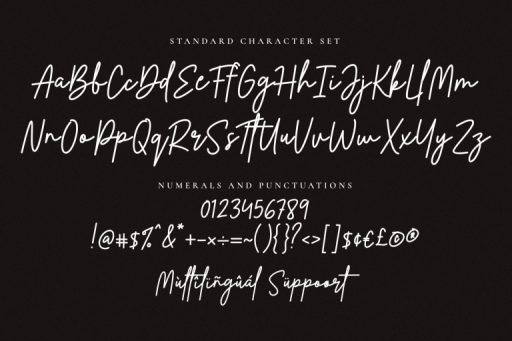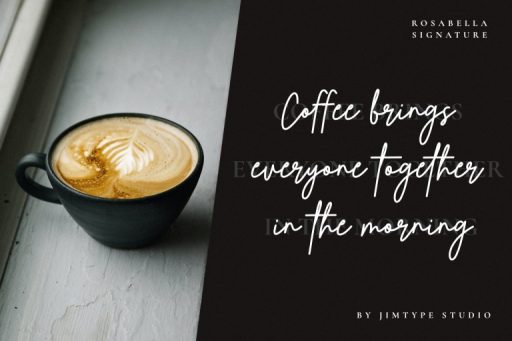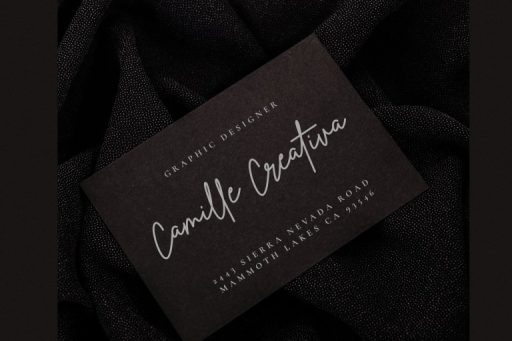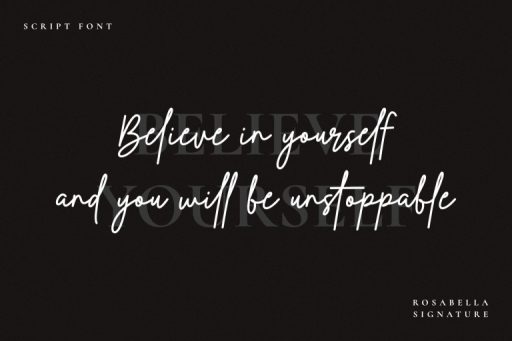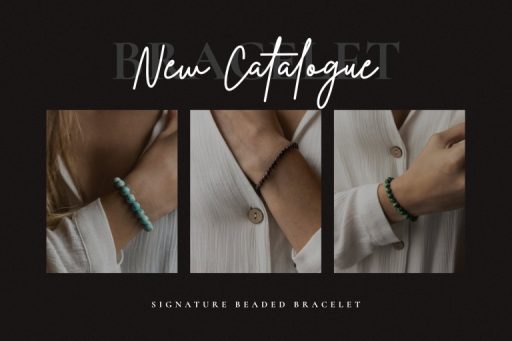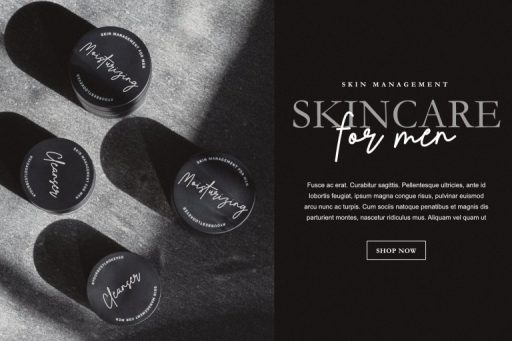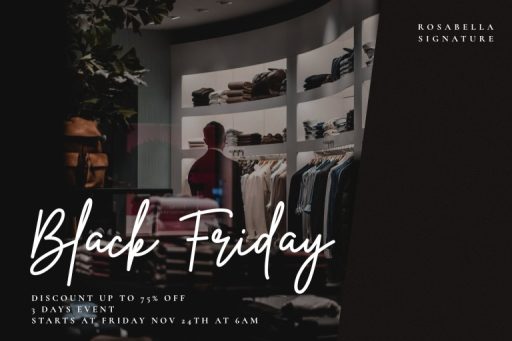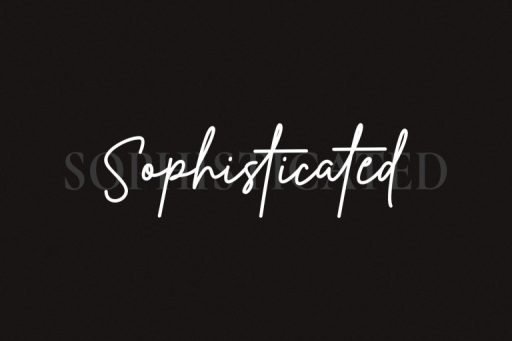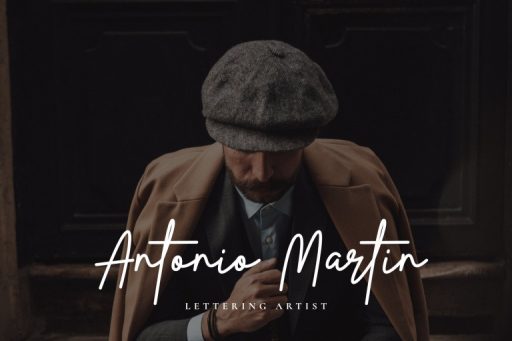
Rosabella Signature - Business Branding Font - Jimtype Studio
Rosabella Signature Font
Rosabella Signature – Signature Business Font
Rosabella Signature is a simple and elegant font that can be interpreted as professional. We try to make this font smooth, elegant, classy, easy to read, and attractive to use for branding projects, logotypes, social media posts, advertisements, product packaging, product designs, label, photography, watermark, invitation, and others you need use this font.
• Multilingual Support